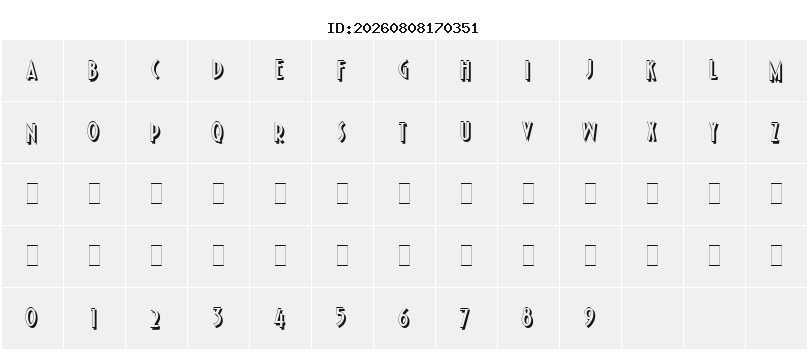
• Font Name: Pleasure Bold Shaded LET
About Pleasure Bold Shaded LET.ttf
Pleasure Bold Shaded LET.ttf is a modern, elegant sans-serif font designed for ultimate readability and visual harmony. Perfect for branding, headlines, web design, and print materials.